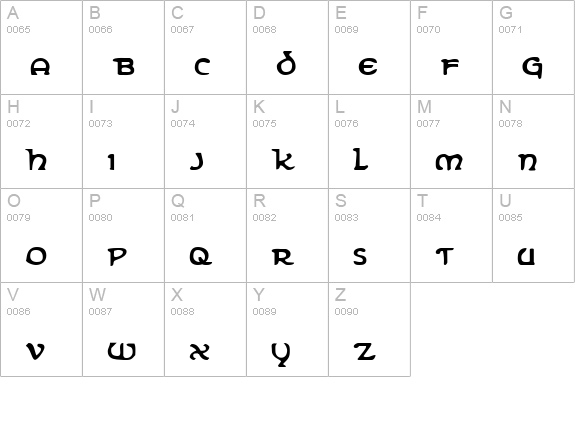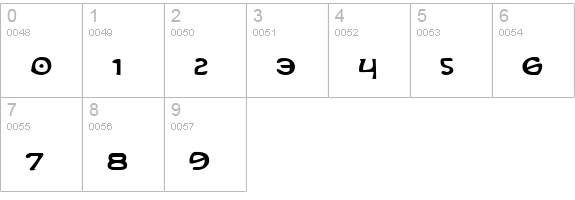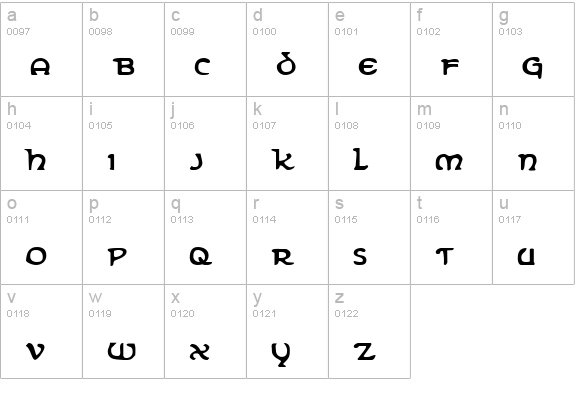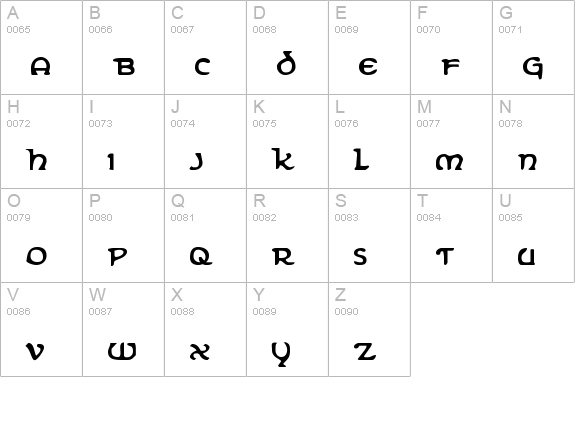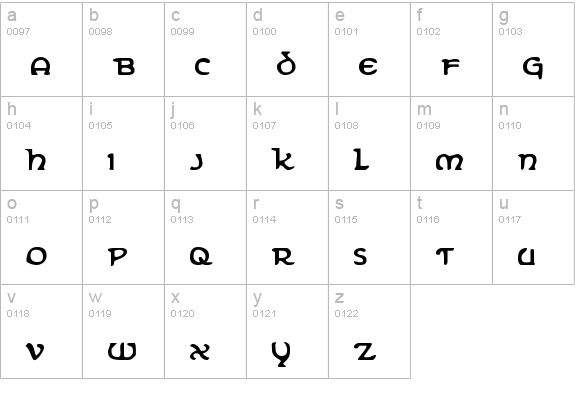
The Erin Go Bragh font is a charming and elegant typeface that exudes a sense of sophistication and timeless beauty. With its graceful curves and classic design, this font is perfect for adding a touch of elegance to any project. Whether you're designing a wedding invitation, creating a logo, or working on a branding project, Erin Go Bragh is sure to make a statement. What's even better is that Erin Go Bragh font is available for free download at FontsMarket.com. That's right, you can enhance your designs with this stunning font without having to spend a dime. So why wait? Download Erin Go Bragh today and elevate your projects with its timeless appeal and artistic flair.